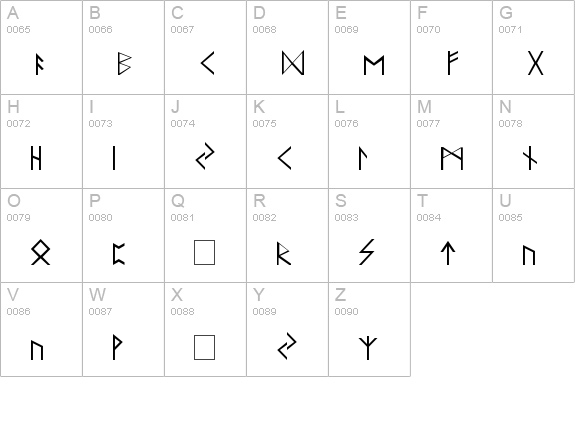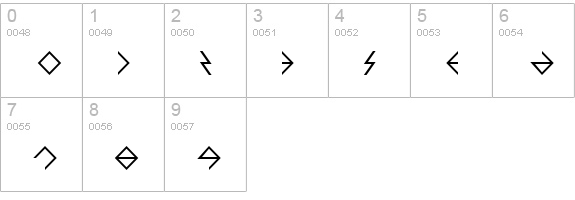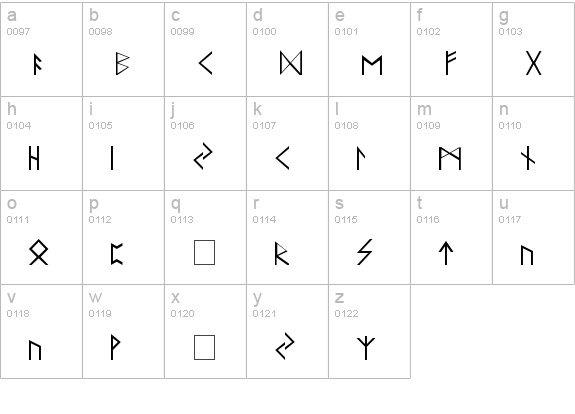
Elder Futhark font is a captivating typeface inspired by the ancient runic alphabet of the same name. Its intricate and mystical design captures the essence of Norse mythology and history, making it perfect for projects that require a touch of the old world charm. The Elder Futhark font exudes a sense of mystery and antiquity, adding a unique flair to any text or design. Best of all, the Elder Futhark font is available for free download at FontsMarket.com. This means that you can easily add this stunning font to your collection without any cost, allowing you to explore its versatile use in various creative projects. Embrace the ancient wisdom and beauty of the Elder Futhark font today by downloading it for free at FontsMarket.com.